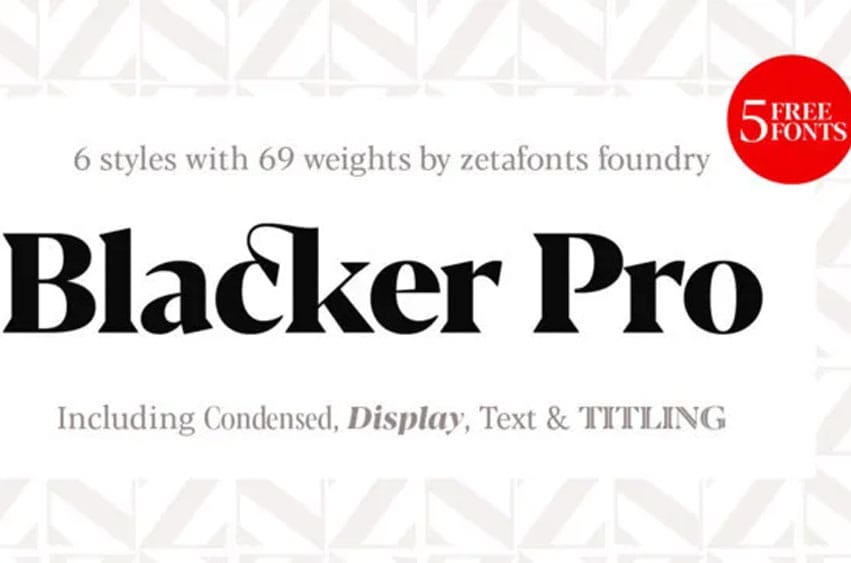
Blacker Pro Font is an updated and expanded version of Cosimo Lorenzo Pancini and Andrea Tartarelli’s 2017 Family of Wedge Serifs Blacker was designed as a variation on what Jeremiah Shoaf has defined as the “evil serif” style: regardless of whether the typefaces contain high contrast, modern or oldstyle serif proportions, or sharp triangular serifs resembling blades. Because of its super-bold contrast design, Blacker can be seen as having some similarities with didone typefaces. Blacker was developed utilizing two subfamilies of optical design.
The display version has more precise tracking, higher contrast, and sharper corners to deliver the best results when used at large sizes; text versions have higher readability, screen rendering at tiny sizes, lower contrast, and looser lettering compared to display fonts.